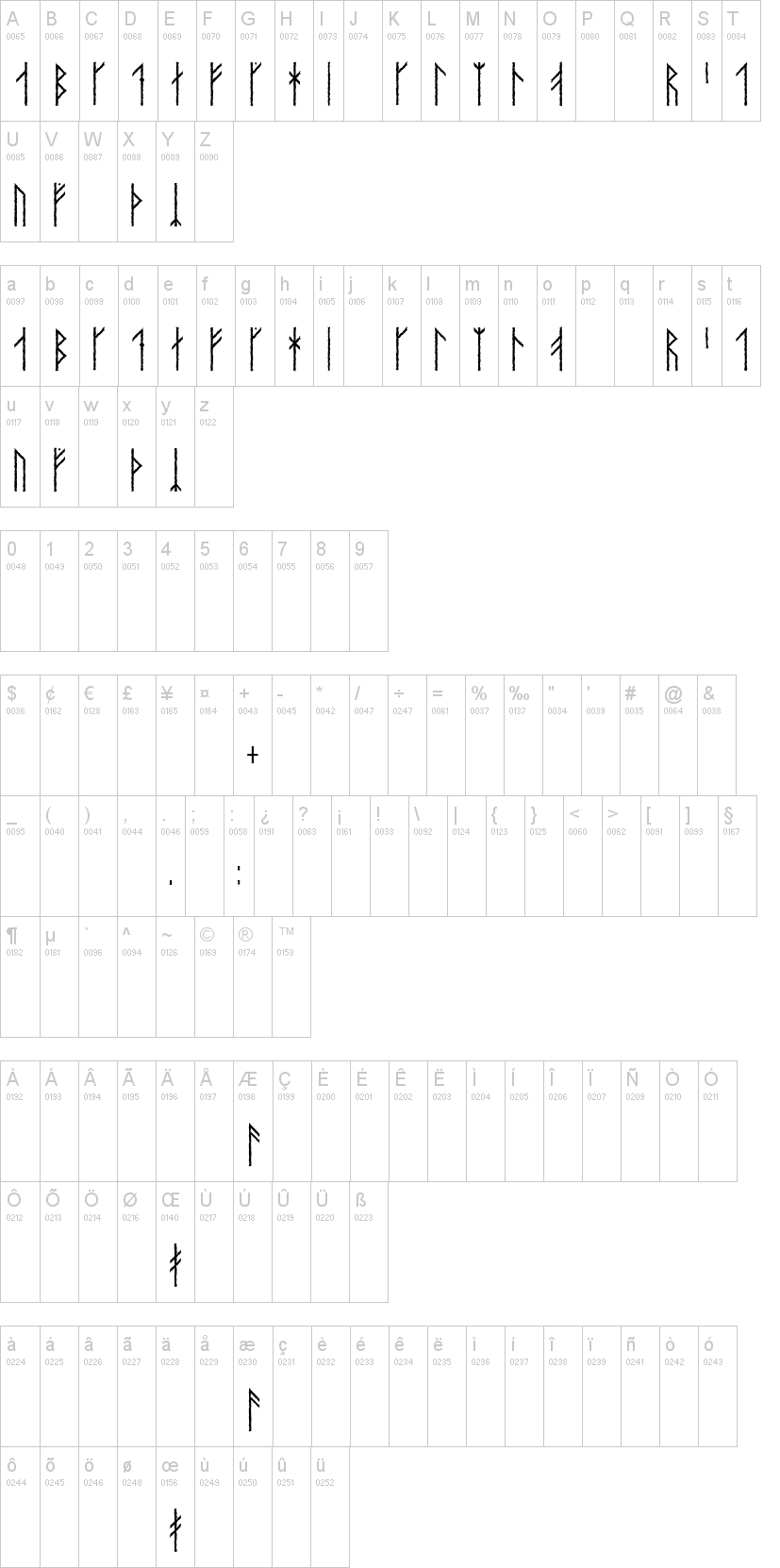
Note of the authorNot a complete Alphabet, which would not be appropriate, but a complete Futhark! The whole of the Unicode Runic code page is here, with some of the symbols also mapped to the relevant Latin character.